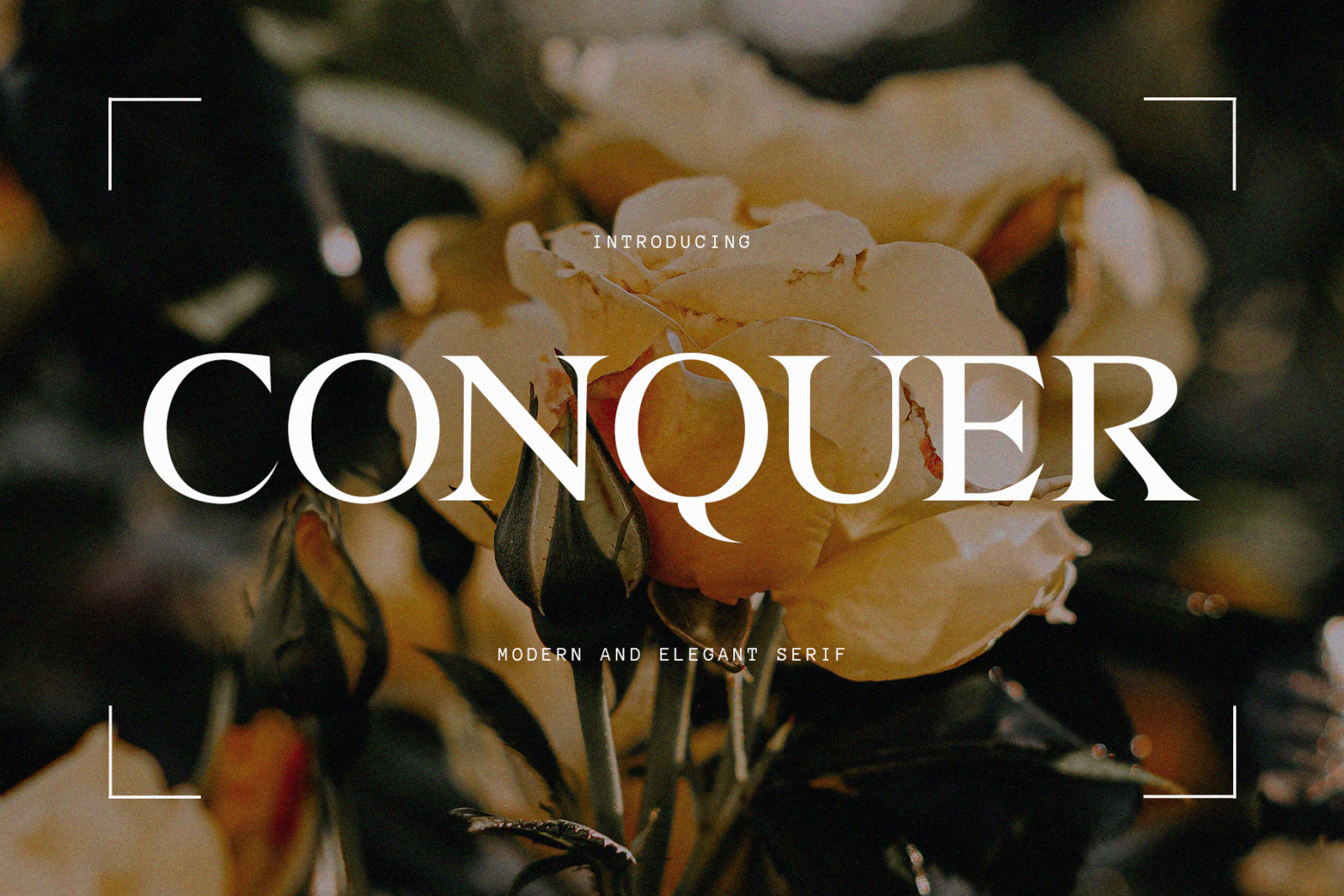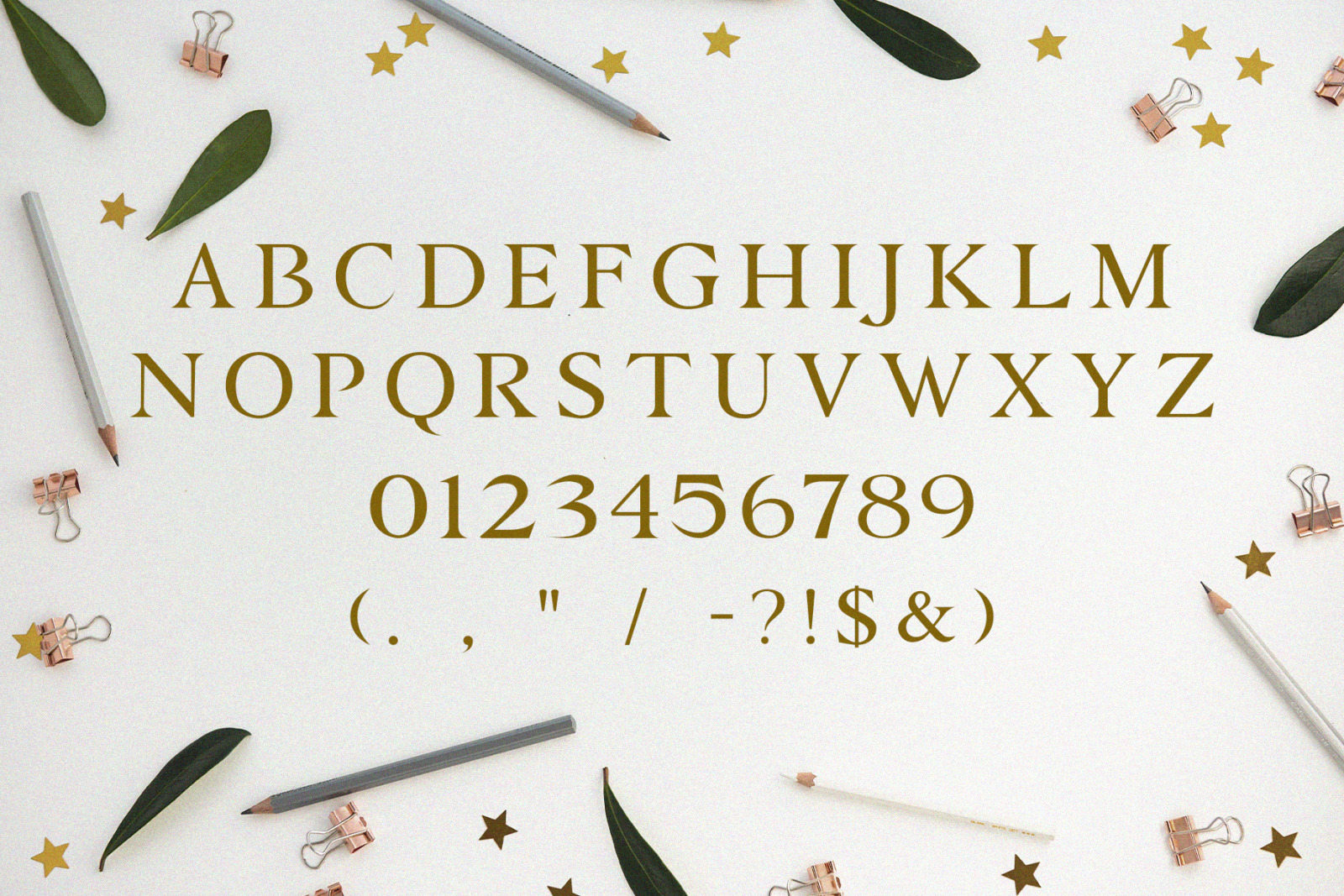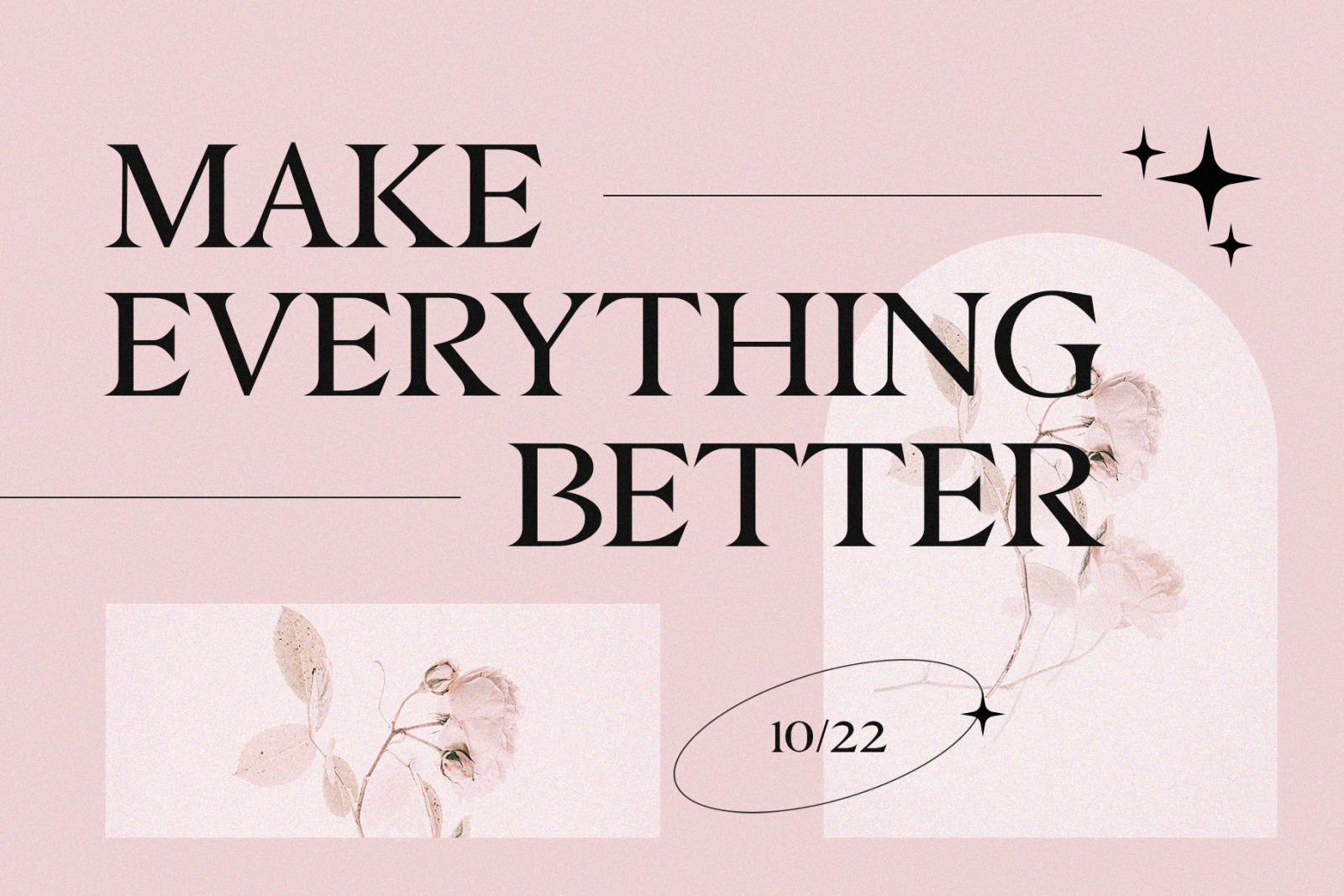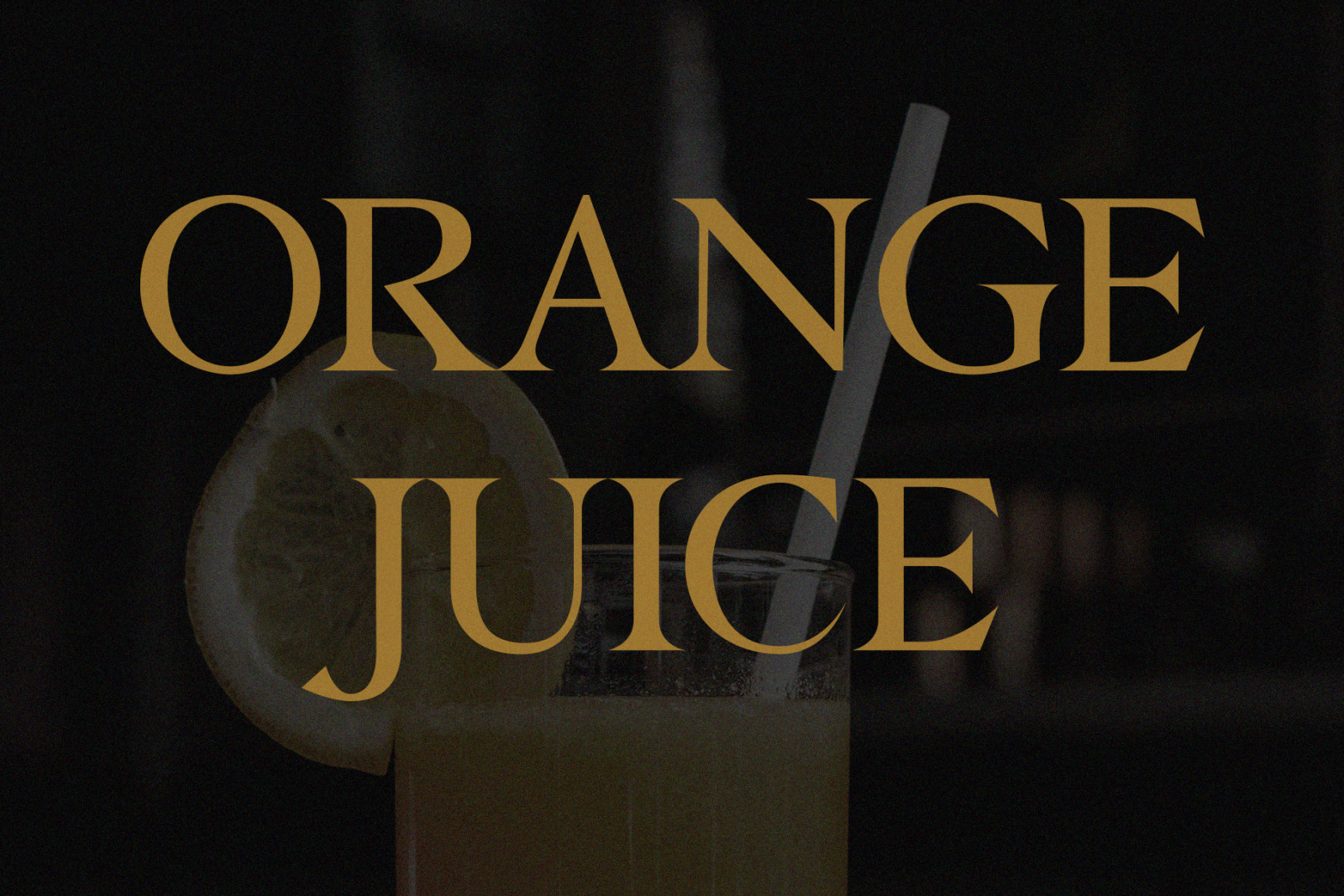
Conquer Modern Font
Introducing the Conquer modern serif.
The Conquer font is a serif typeface that has an elegant and modern style, which is perfect for displaying titles.
It is also great for writing long and short articles.
Punctuation & Numbers
This serif is elegant, aesthetic and modern in style.